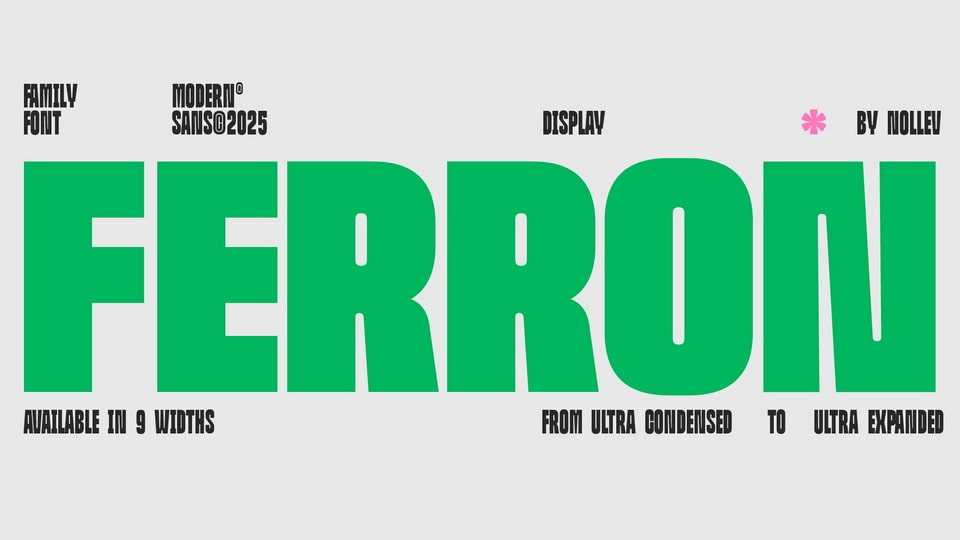
Download Ferron font, a high-octane display typeface to deliver uncompromising visual strength, inspired by industrial structures and monumental typography.
Designer: Akhmad Hidayat